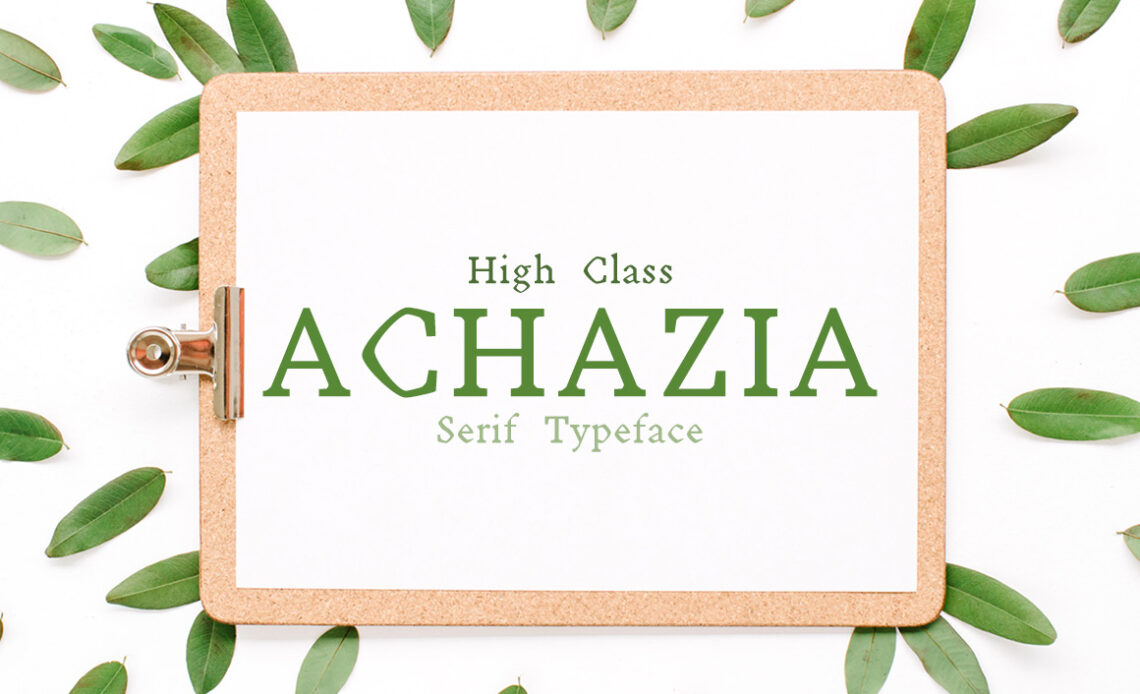
Achazia Font
Overflowing with beauty and sophistication, the Achazia Serif Premium Font Family is crafted to elevate your designs to new heights. This exquisite font boasts four distinct weights, each exuding its own unique charm and versatility, allowing you to seamlessly adapt it to any creative endeavor.
Crafted with meticulous care by the renowned Creative Tacos, the Achazia Serif font family embodies the essence of modern elegance. Its graceful curves and refined serifs evoke a timeless allure that transcends fleeting trends, ensuring your creations remain captivating and enduring.
Whether you seek to craft elegant invitations, stunning logos, captivating brochures, or eye-catching website designs, the Achazia Serif font family is your perfect companion. Let its sophisticated charm infuse your words with an air of distinction, leaving an unforgettable impression on your audience.
But beyond its aesthetic appeal, the Achazia Serif font family is a testament to functionality and adaptability. Its meticulously designed characters ensure flawless readability, even in the smallest of sizes, making it an ideal choice for both print and digital applications.
So why settle for ordinary fonts when you can embrace the extraordinary? Immerse yourself in the world of Achazia Serif and unleash your creative potential. With its timeless beauty and unmatched versatility, this font family is destined to become your go-to choice for any design project that demands elegance, sophistication, and enduring appeal.